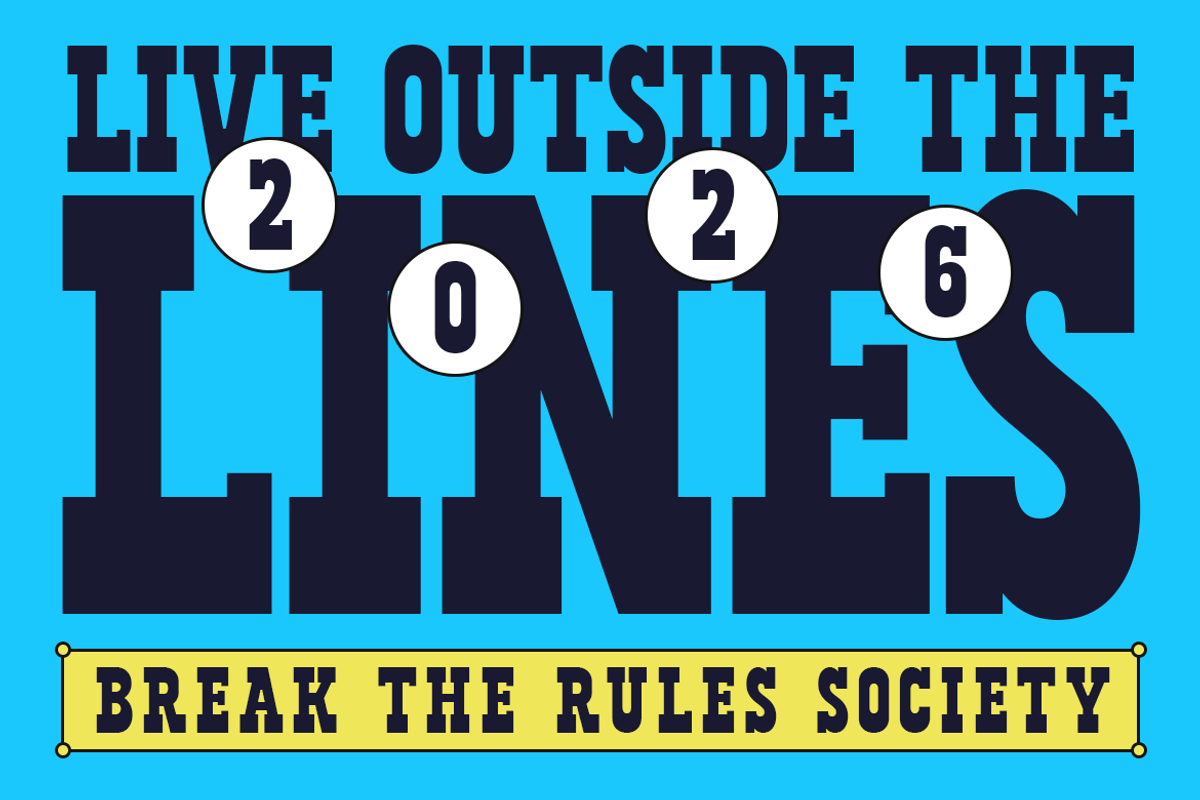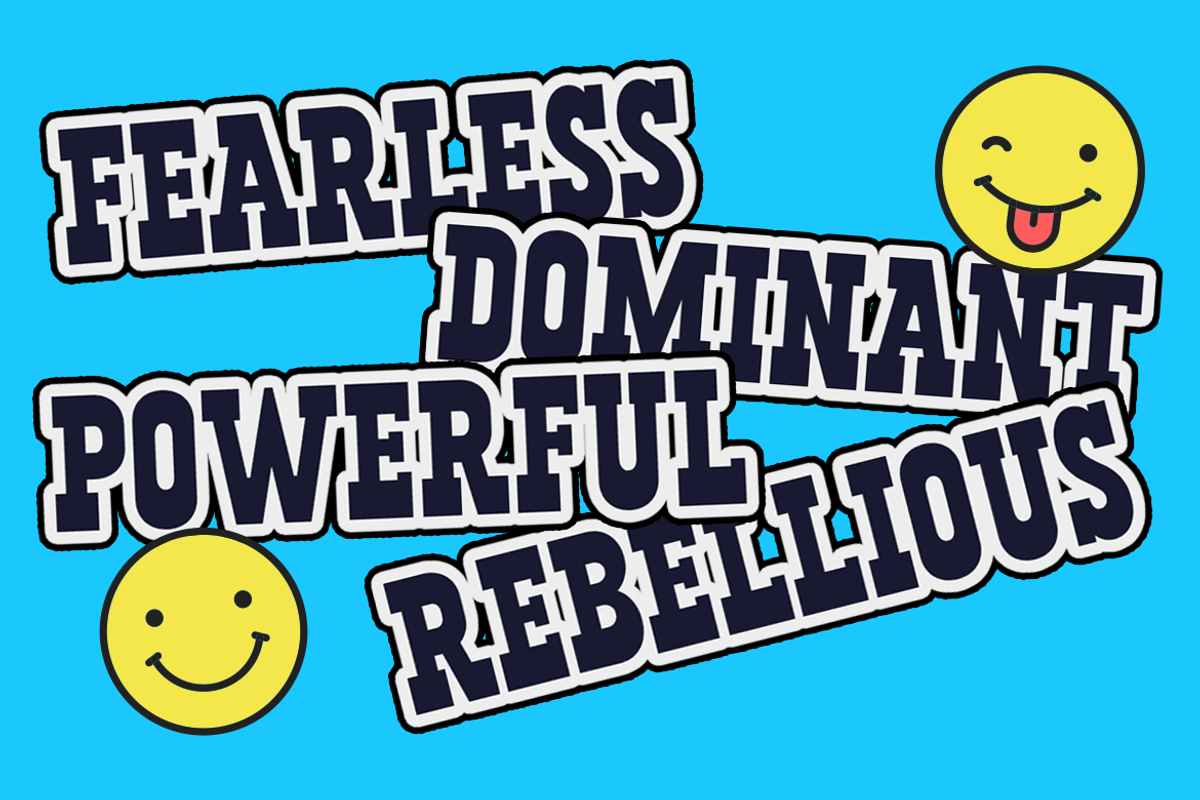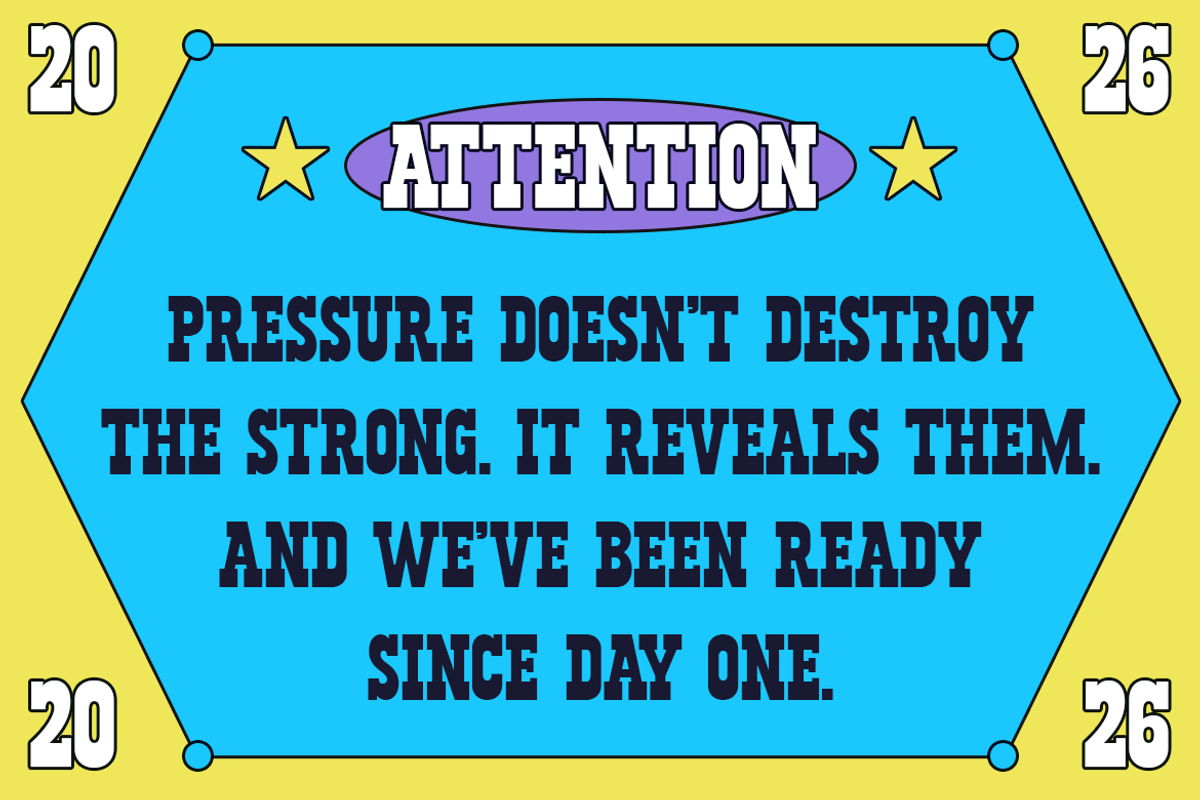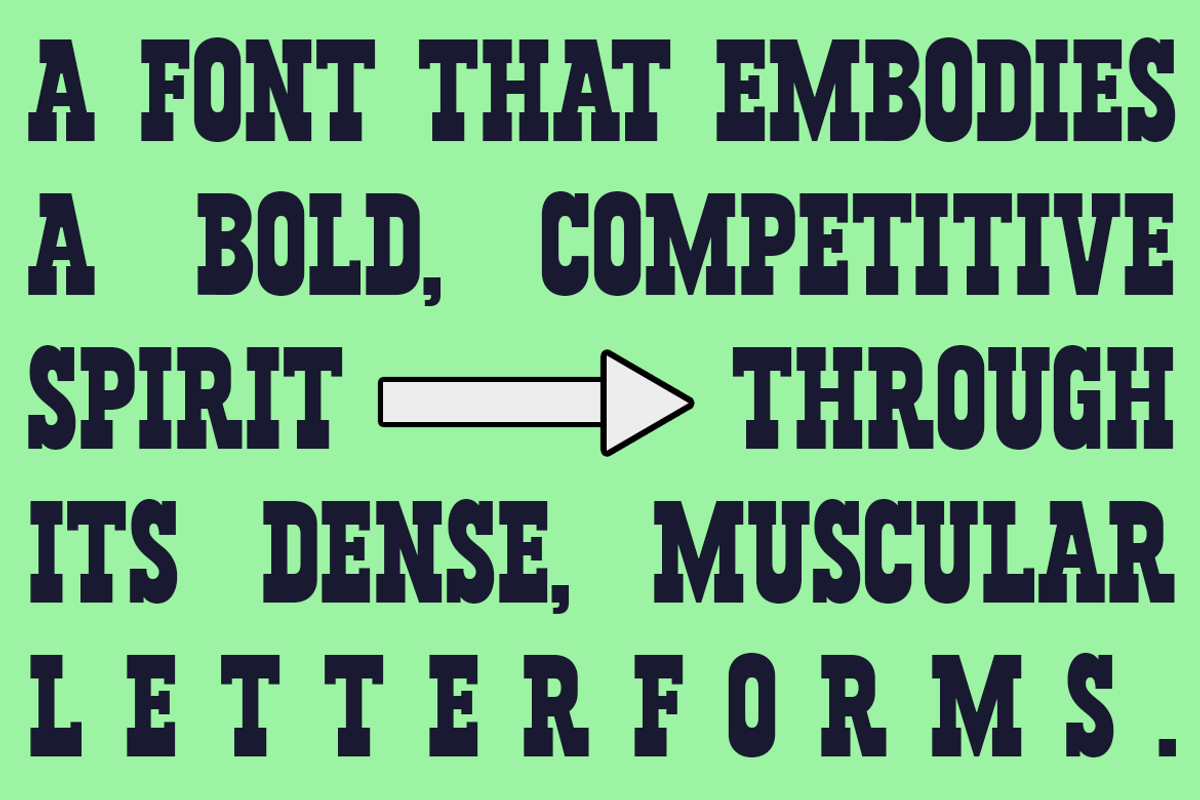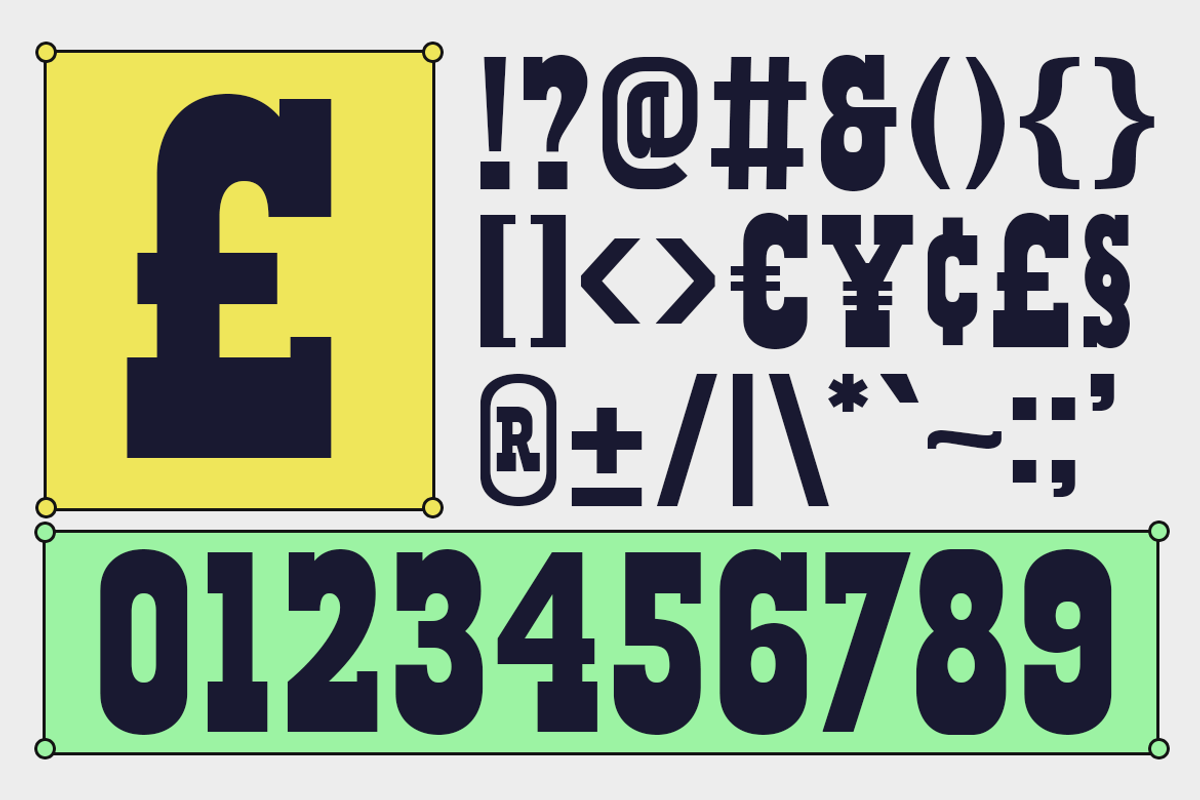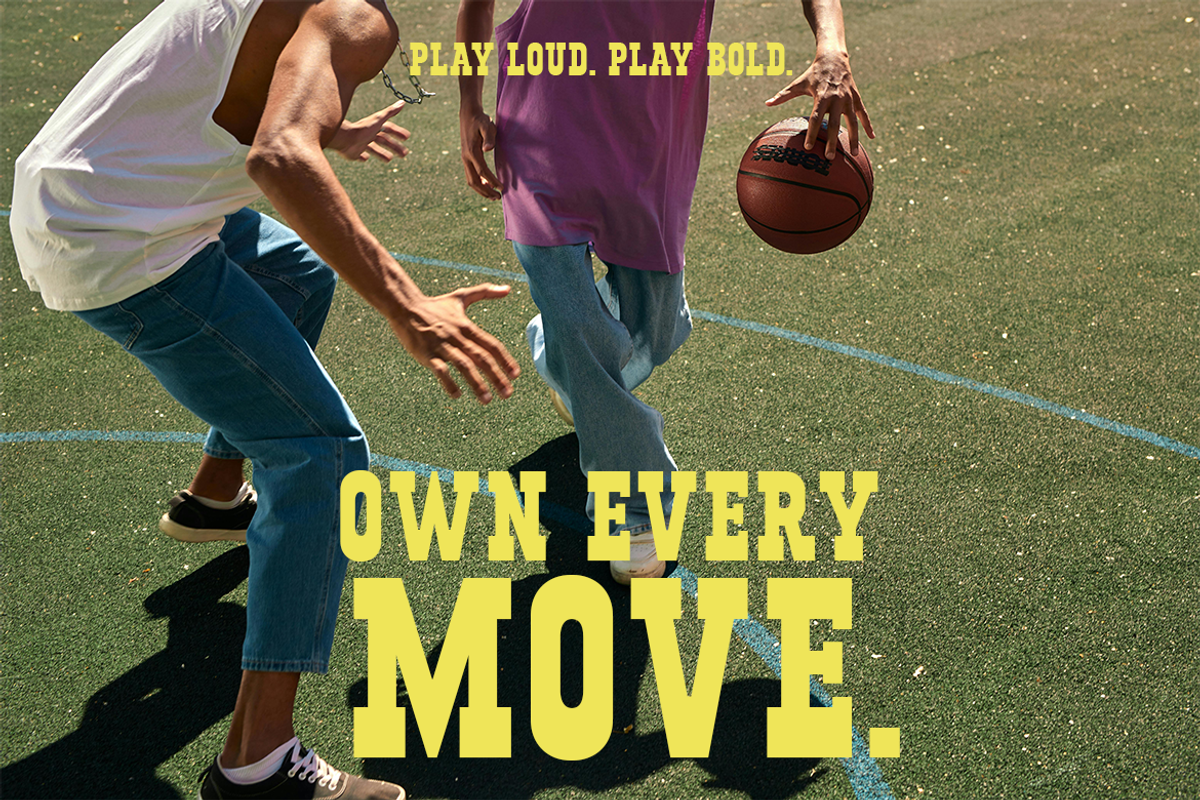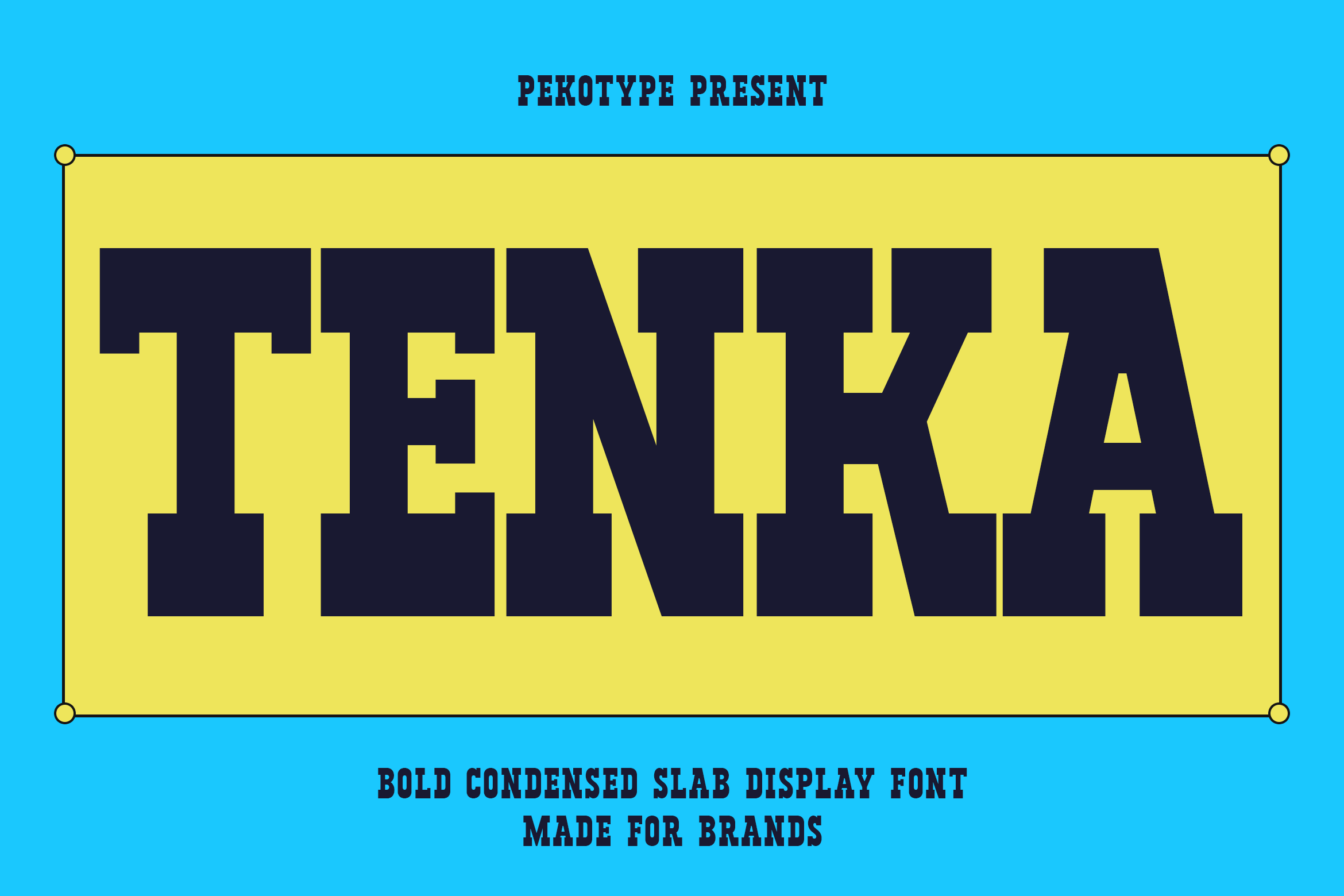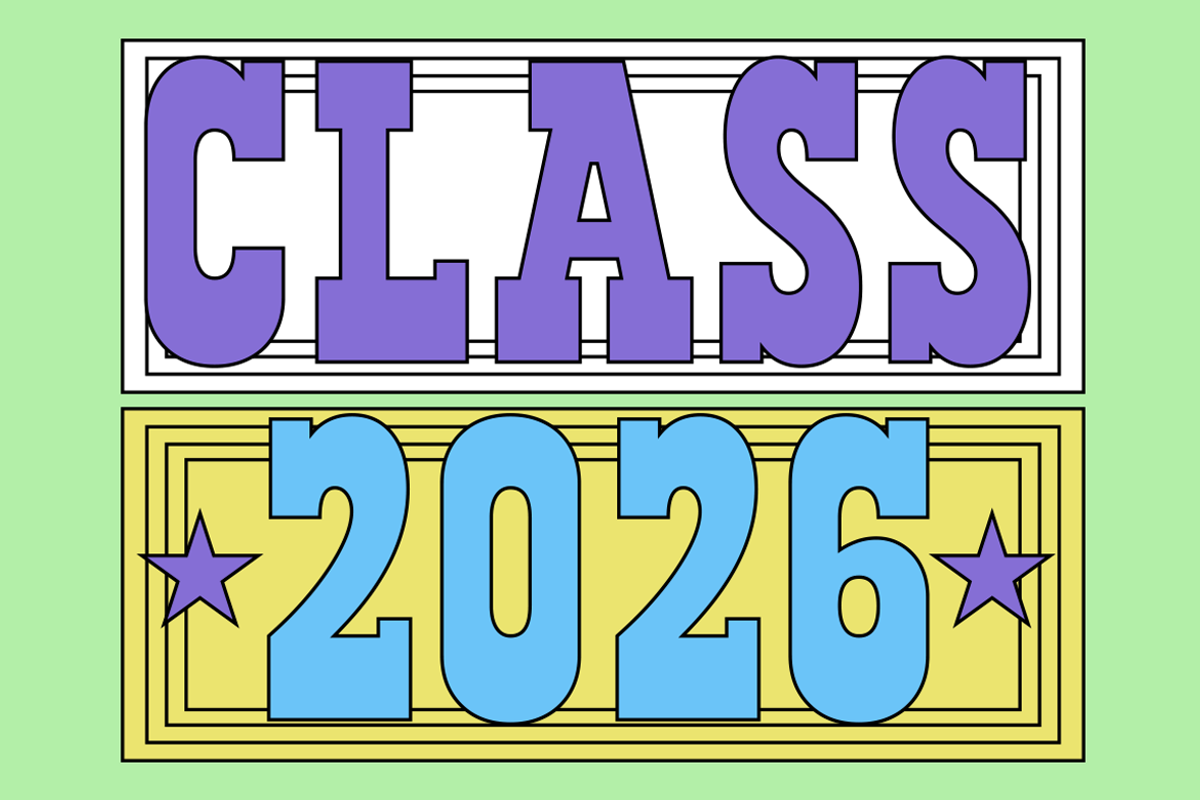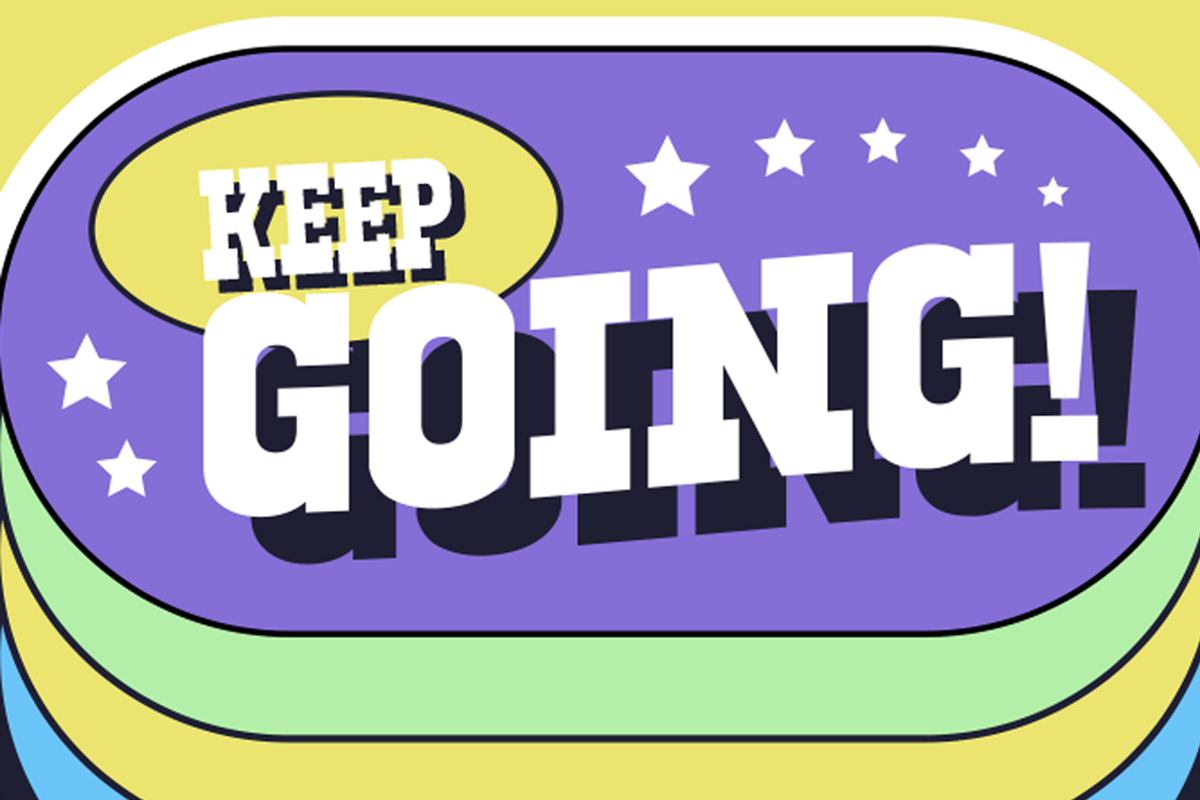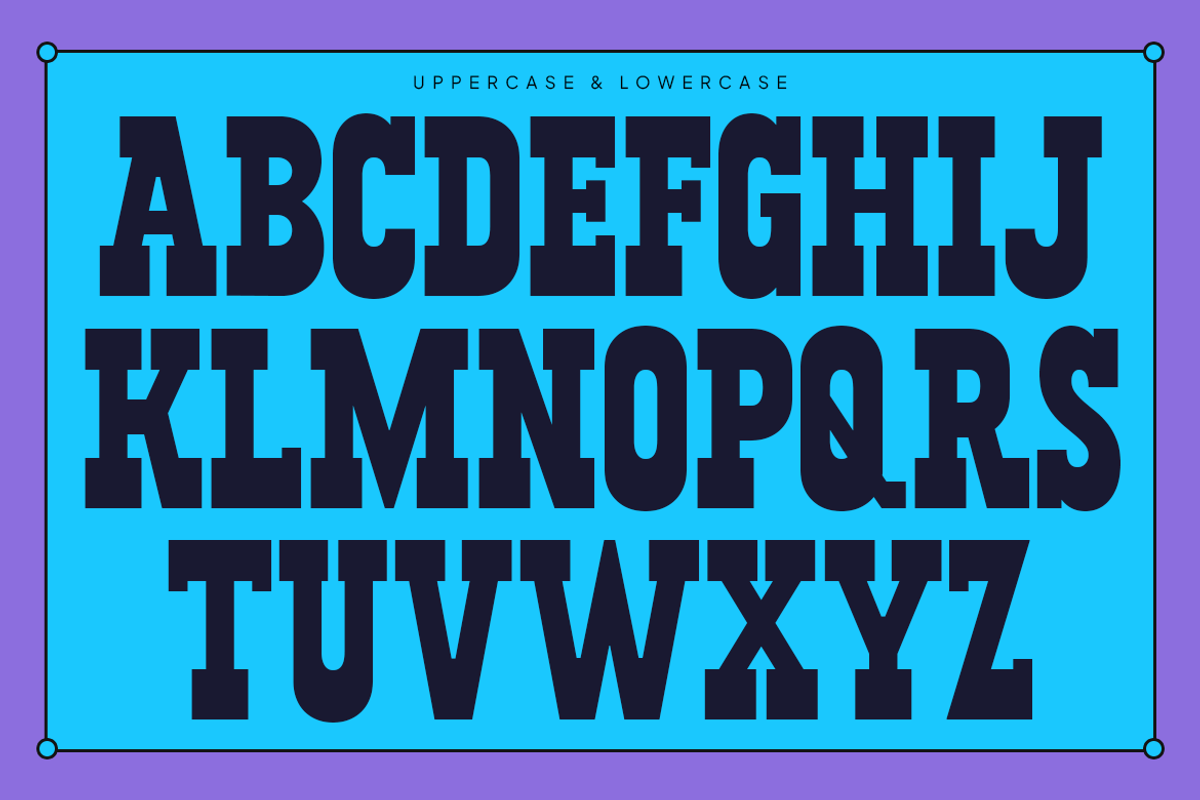
Tenka - Condensed Slab Serif Font
TENKA - Condensed Slab Serif Display Font is a bold slab display typeface with a strong and competitive vibe. The letters are thick, solid, and muscular, giving your text a powerful presence. With its sharp slab serifs and compact structure, TENKA feels confident, tough, and ready for action. It’s designed to stand out in big headlines and bring a strong personality to any layout without being hard to read.
TENKA is perfect for sports posters, streetwear branding, event graphics, motivational quotes, merchandise, bold social media posts, school themes, and promotional campaigns. It works great for projects that need strength and attitude, like competition visuals, class designs, sales banners, and statement headlines. If you want a slab display font that feels bold, energetic, and full of impact, TENKA will make your design look strong and unforgettable.
- All Caps
- Number, Symbol, & Punctuation